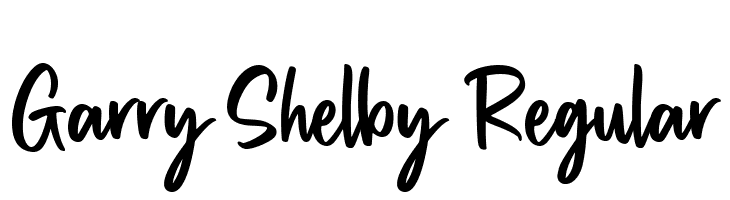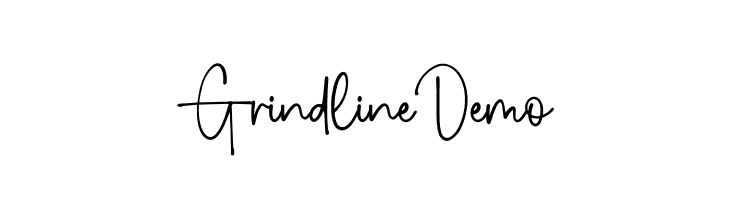
A retro, digital-style font with bold, blocky characters reminiscent of early computer interfaces.
A bold, modern font with thick strokes and high legibility.
A bold, futuristic font with a three-dimensional effect and geometric design.
A playful, handwritten font with rounded edges and a friendly appearance.
A playful font with bold, tilted letters and charming illustrations.
An elegant and flowing script font with graceful curves and cursive strokes.
A graceful script font with fluid, elegant strokes and a handwritten feel.
A dynamic, handwritten font with expressive, flowing strokes.
A playful, handwritten font with smooth, flowing lines and a casual aesthetic.